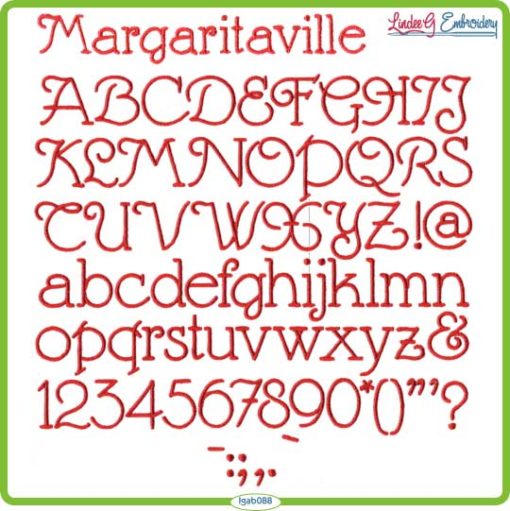
Margaritaville is a decorative, curly serif machine embroidery font that includes A-Z, a-z, 0-9 and the following punctuation: `!@#$&*():;”‘,.? (78 total characters).